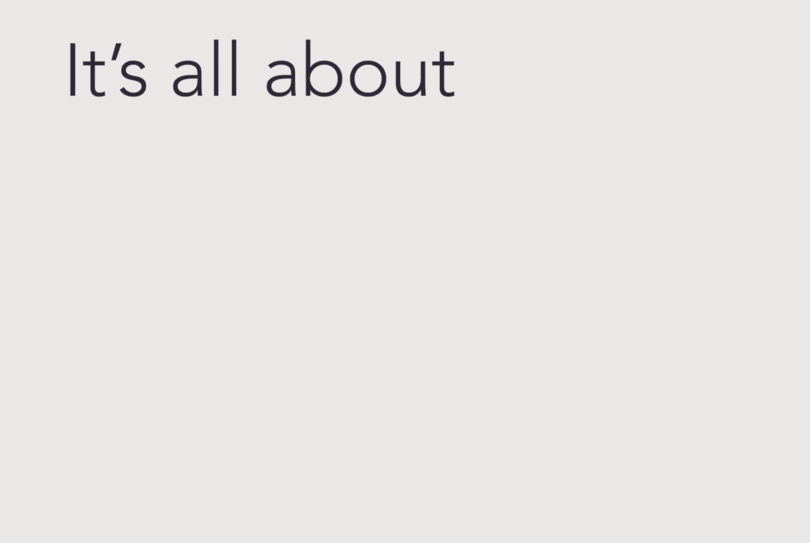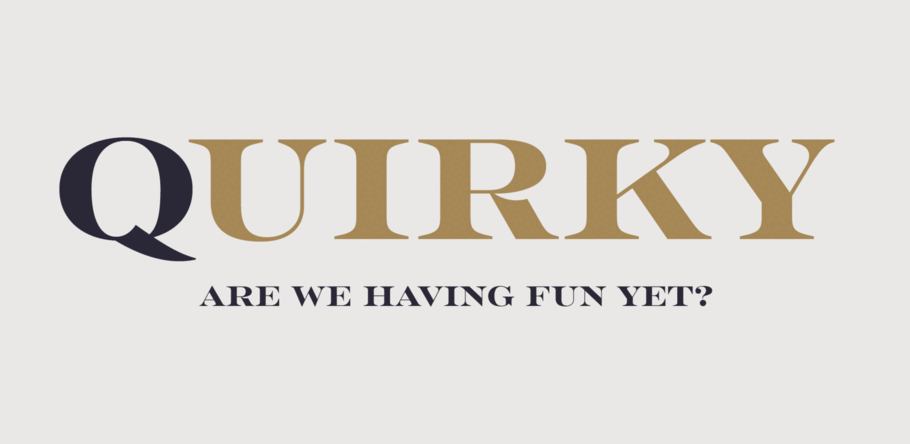
What’s behind the rise of ‘quirky’ serifs?
You may have noticed a reemergence of serif typefaces appearing across logos, wordmarks, and display fonts. High-visibility brands like Chobani and WeWork feature a serif logotype, whereas Slack and Oscar Health use a serif font as their primary display fonts. With grotesque and geometrics sans serifs fonts dominating the branding landscape for the past few decades, it’s interesting to note this stark departure.
The argument for sans serifs
Sans serif fonts have come to connote progress and modernity, whereas serif typefaces evoke a more old-fashioned, traditional feeling. This explains why sans serif designs have been a popular choice for industries such as aerospace, information, medicine, and biotech for the past 60 years. And within the tech industry, giants such as Google and Yahoo have completely eliminated their use of serif fonts, while newer companies launch without a serif typeface in their branding at all.
As Monotype Studio type designer Juan Villanueva points out, “Sans serifs have been made the go-to, safest design branding option…[they] carry a connotation of neutrality, simplicity, and agility. Changing that is hard.”
Another reason for the ubiquity of sans serif fonts is their on-screen legibility. It is widely argued that by switching from serif to simpler sans fonts, people can better read letterforms on illuminated screens, particularly small ones.
However, technology has caught up by implementing bigger, high-resolution screens. A serif can be rendered in seven pixels, and the iPhone 7 has a resolution of 1,334 x 750 pixels. Present-day screens are putting those legibility concerns to rest.
The departure
It seems after decades of using sans serif fonts as if there were no serifs in town, designers are looking back at serifs as a way to infuse brands with charm and character. Serif designs offer unique visual opportunities that aren’t present in a lot of major corporate branding. It’s possible designers and brands are inspired to embrace as well as emphasize their originality through fonts rich in personality, finding authentic and unique alternatives from the minimalist look.
Carl Crossgrove, Senior Typeface designer at the Monotype Studio, has noted the emergence of the “quirky” serifs, defining them as “crisp, machined transitionals with wedge serifs.”
What can we make of this trend? “I think more people are recognizing a sameness and wanting something different,” he says. “Somehow sans type is so prevalent that now serif type seems quaint or unusual.”
In a time where consumers crave authenticity, brands must be able to deliver their messaging in a way that resonates with their audiences and stays true to who they are. For some brands, sans serif fonts do not fully capture their personality and what they want to communicate. To stay relevant, they must adapt their look to one that feels more authentic and that might not be the popular look of the time.
Villanueva also connects the trend to consumers’ demand for brands to be more relatable. “What I suspect is behind this [change] is the constant and rapid news cycle, technological developments, and social media where companies try to shape public perception through their branding and manifestations across their multiple channels… especially today where the customers expect more intimate relationships with the brands they follow.”
But how does this translate to design?
Fonts are a key element of brand identity. It’s the through line of each visual customer touchpoint and may be the only brandable asset in cases where elements such as color, imagery, or iconography can’t or won’t work. And, each typeface has a distinctive voice and tone.
Choosing a font to represent your brand begins with understanding your brand identity and truth. It’s important to find or design a font that aligns with your brand’s personality traits to be truly authentic. When rebranding, consider the impressions you want to make, the values you want to reflect, and the emotions you want to evoke. Understand how these elements fit into your brand and how the consumer interacts with the brand. Your fonts should reflect these qualities and should clearly communicate what’s at the heart of the brand.
For Chobani, the new wordmark—what Crossgrove would describe as “an old-fashioned soft serif design, like Goudy, Cooper, and Windsor”—captures the feel-good, healthy yet indulgent sensation of the product in a dynamic, smooth, curvy, and solid serif. It represents the earthy wholesomeness of the product better than the tech-y feeling font used before it. By better aligning with Chobani’s brand values, the new typeface communicates the approachability and warmth of the brand in an expressive way that’s not over the top or trite.
Will we see more brands adopting a serif?
Villanueva hesitates to call the emergence of the quirky serifs a trend. “Medium and Evernote [may have adopted] logos with serifs, but their UI and web typography are still predominantly using sans serifs, aside from Medium’s blog entries, which makes me think those changes are happening on the surface level and not as in-depth as in Chobani’s.”
Still, as brands evolve, they’ll continue to find ways to engage their audiences, balancing authenticity with digital accessibility. Though this does not necessarily mean we’ll see more serifs, it’s clear that fonts are a key component of visual identity and provides a broad palette for brands to express their voice.